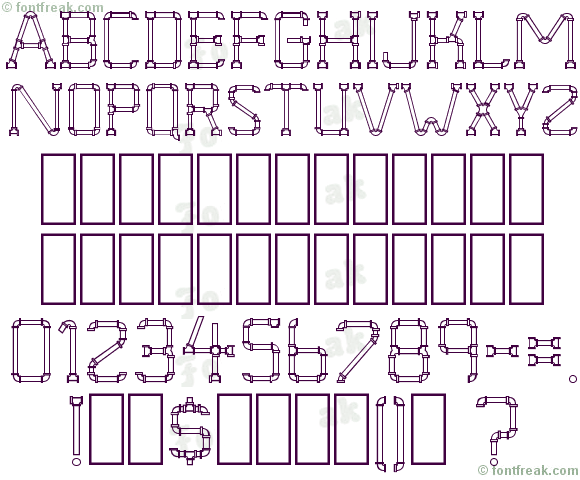
Pipe Dream
About Pipe Dream
The Pipe Dream font by Jonathan Paterson is a captivating display typeface that falls within the decorative category. Its unique character brings a playful yet structured aesthetic, making it an excellent choice for various creative projects. The font features bold stroke weights complemented by a consistent contrast, which gives it a distinctive presence. The spacing between characters is well-balanced, ensuring legibility while maintaining an artistic flair. Decorative elements, such as rounded edges and playful curves, enhance its whimsical nature, making it visually engaging.
This font is particularly suited for a range of use cases. It shines in creative environments, ideal for crafting eye-catching movie posters that require a bold statement. Additionally, Pipe Dream is perfect for branding small businesses, especially those in the arts, crafts, or entertainment sectors, where a unique visual identity is essential. Wedding invitations can also benefit from its stylish charm, bringing a touch of modern elegance to special occasions. Restaurant menus featuring this font can attract attention, creating a memorable dining experience through its artistic appeal. Lastly, it is an excellent choice for content creators looking to add flair to social media graphics and promotional materials.
Targeting graphic designers, small business owners, and content creators, the Pipe Dream font provides an opportunity to elevate visual communication. Its free availability as freeware makes it accessible for anyone looking to enhance their design projects without the burden of licensing fees. Pipe Dream font free download is an attractive option for those seeking to experiment with a unique typeface that stands out in a crowded marketplace. In summary, Pipe Dream is not just a font; it’s a creative tool that embodies personality and flair, making it an essential addition to any designer's toolkit.